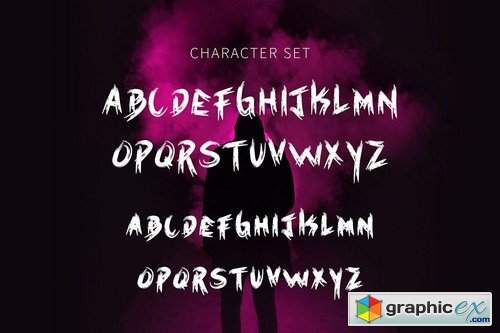
Halloweins - Brush Font DR
Hello! We are happy to introduce our new font "Halloweins" is a Spooky brush font, this font looks spooky, horror, catchy and easy to use.